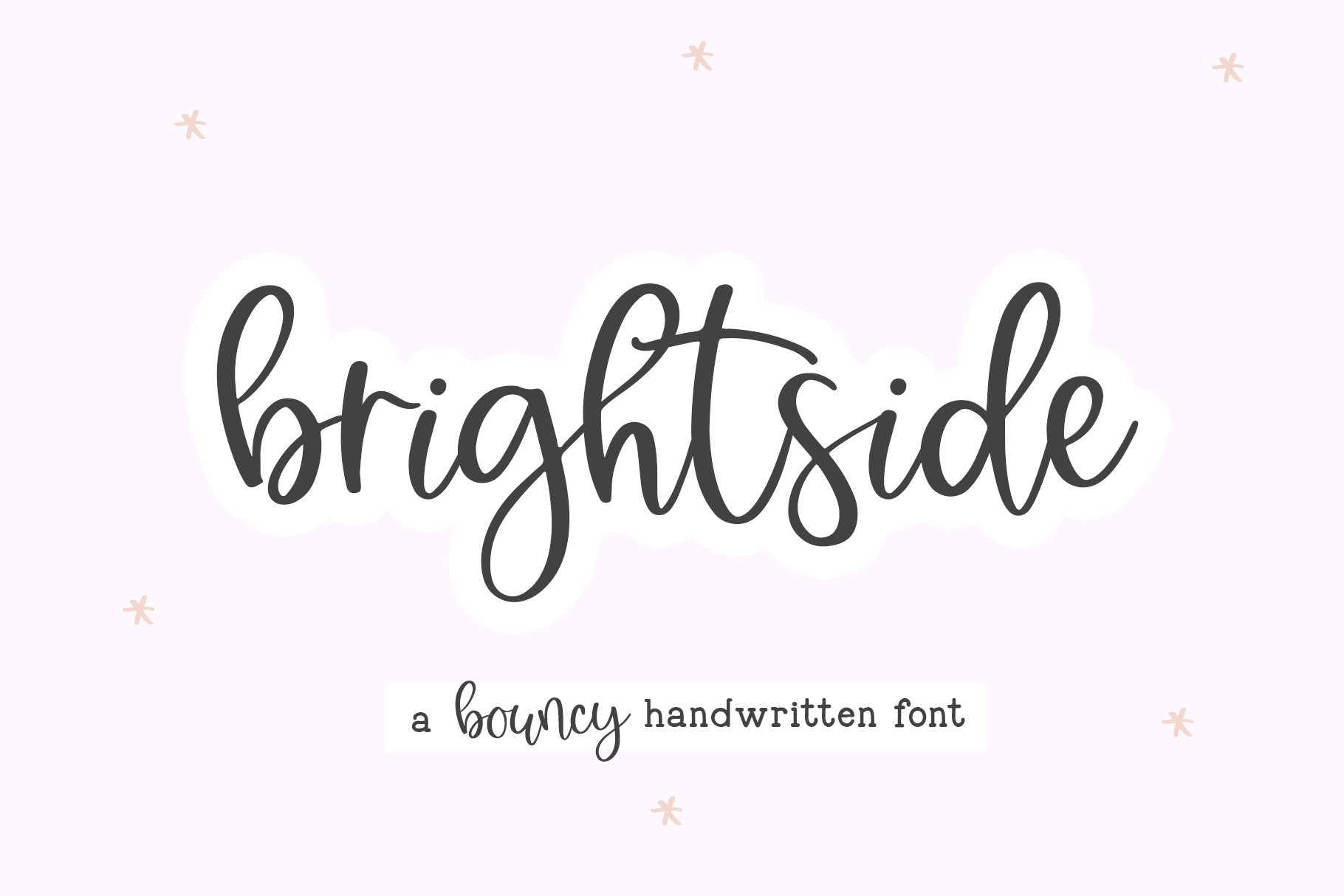
Brightside | Handwritten Script Font
Brightside is a bouncy handwritten script font. This font is especially perfect for crafters!
Most accent characters included.